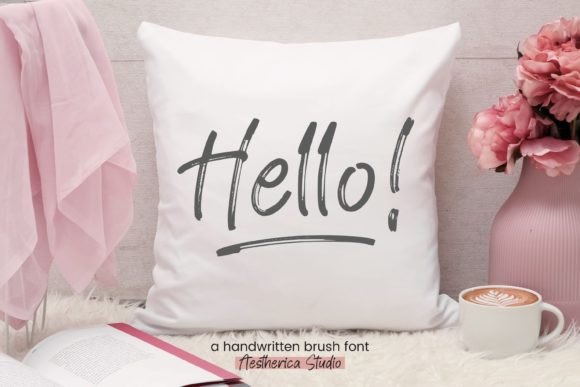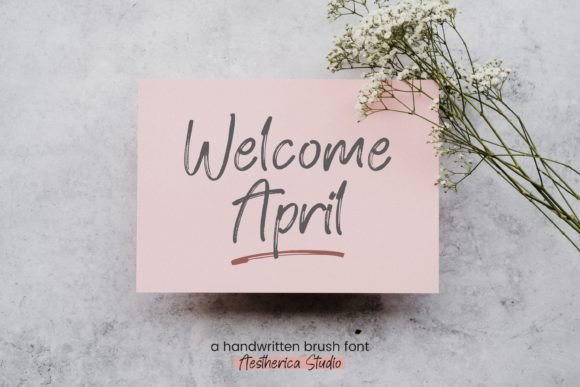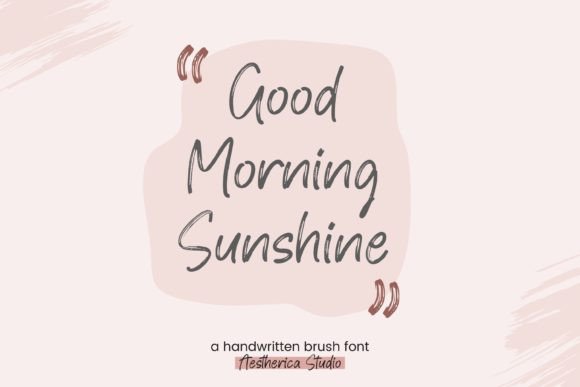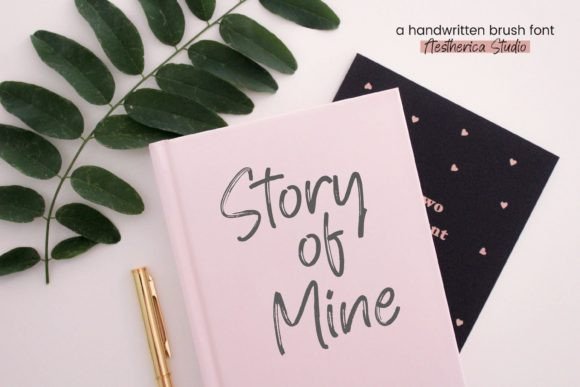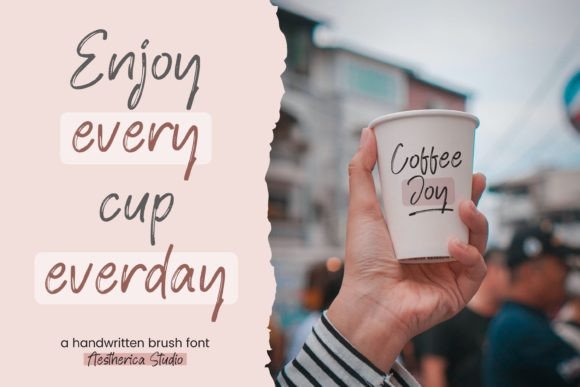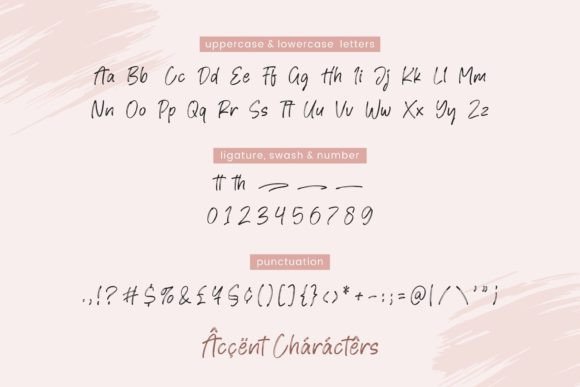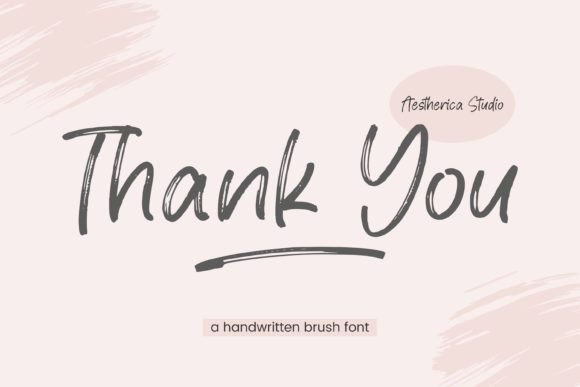
Hugins Font
“Hugins” is introduced as a handwritten brush font with a strong charm characterized by quick dry strokes and a signature style. This font is positioned as a versatile choice, perfect for a range of applications including branding projects, homeware designs, product packaging, and stylish text overlays on background images.
The key features highlighted in the description include the quick dry strokes, suggesting a dynamic and expressive quality to the font’s brush strokes. The signature style adds a personal touch, contributing to the overall charm of the font.
The versatility of “Hugins” is emphasized, indicating that it can be applied across various design contexts. Whether used for branding, homeware designs, or product packaging, the font is suggested to bring a stylish and charming quality to the visual elements of these projects.
In summary, “Hugins” is presented as a handwritten brush font designed to offer a strong charm with quick dry strokes and a signature style. Its versatility makes it suitable for a wide range of design projects, providing a stylish and expressive text overlay to enhance the visual appeal of branding, homeware designs, and product packaging.